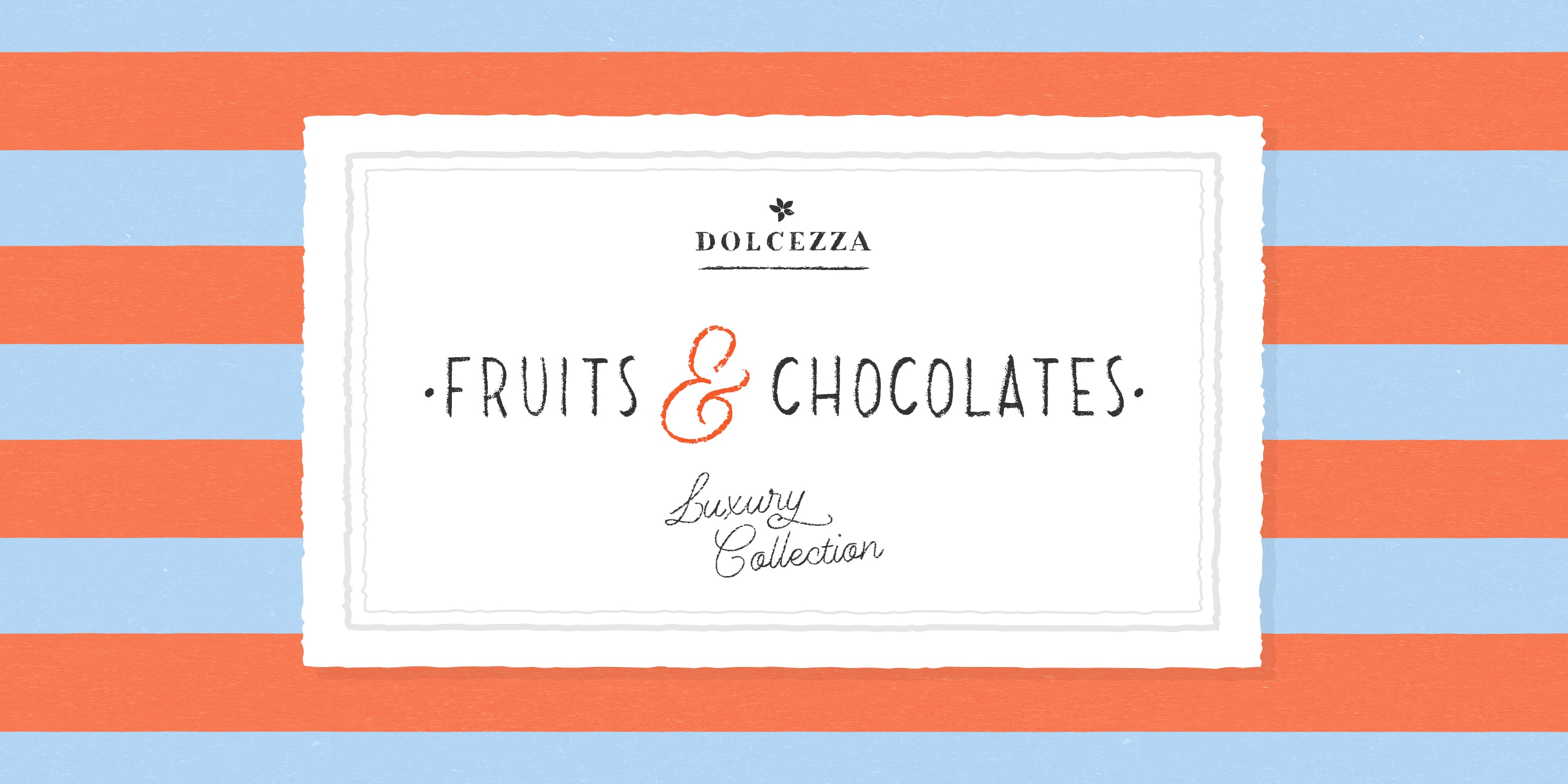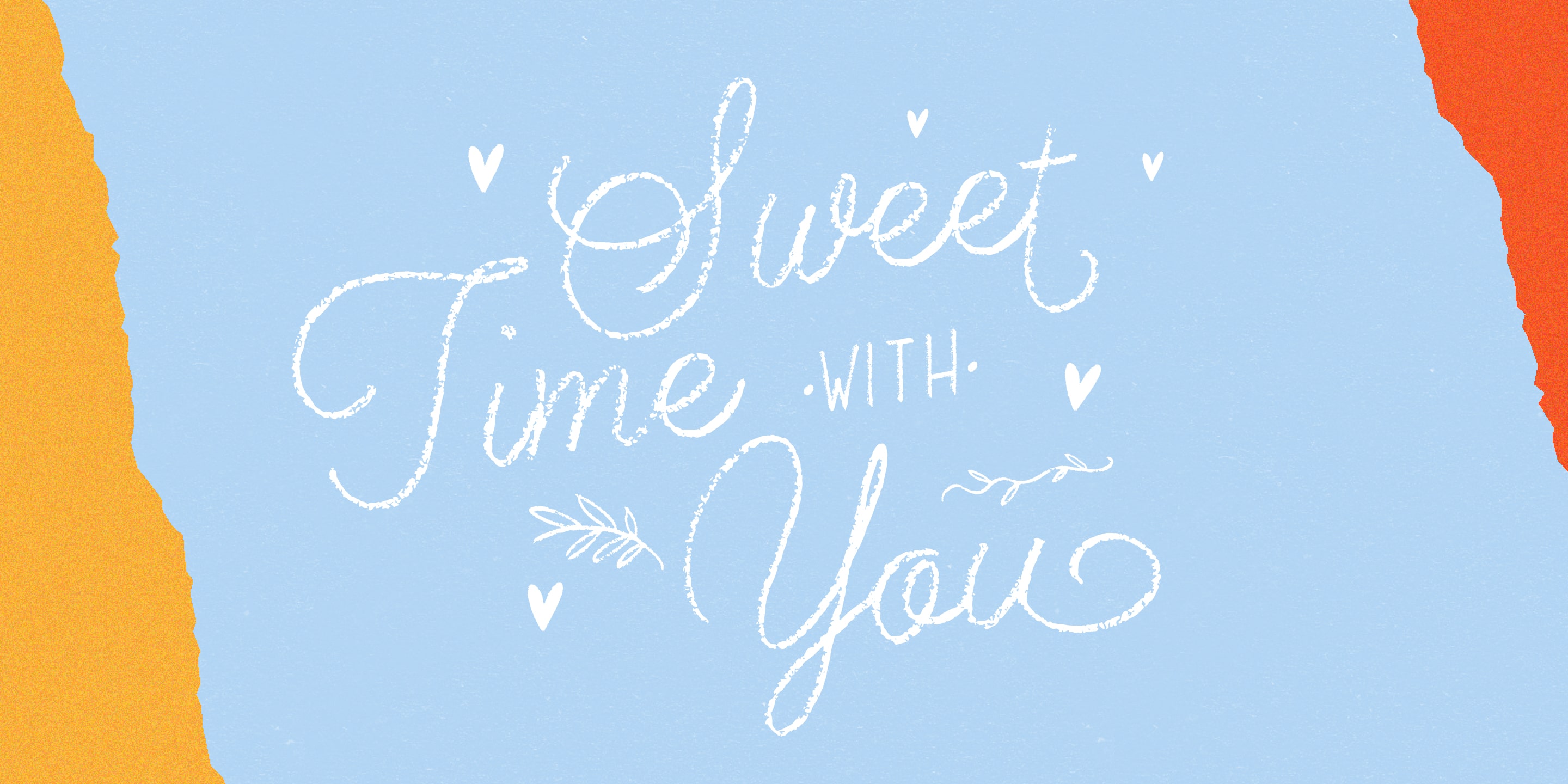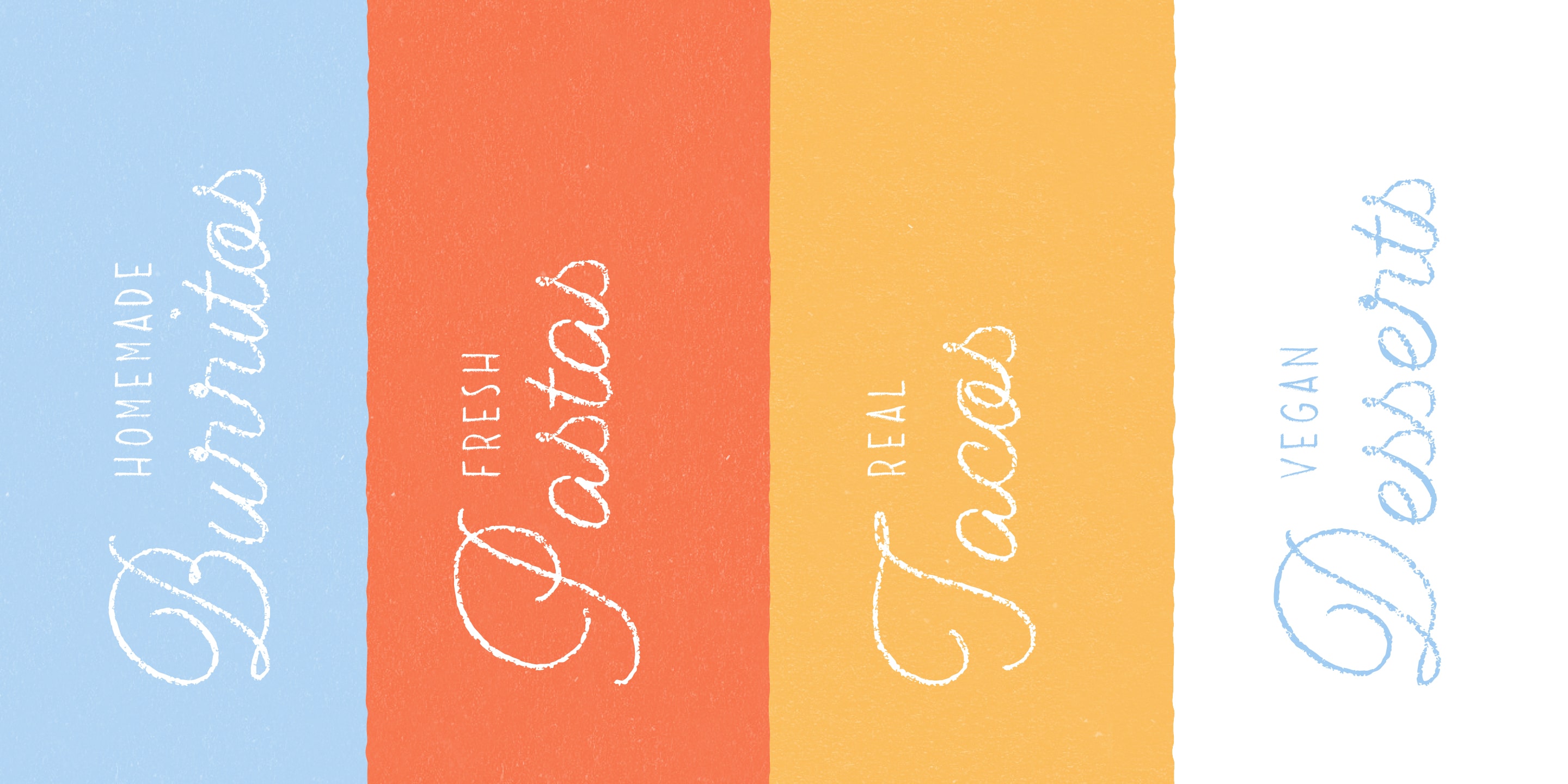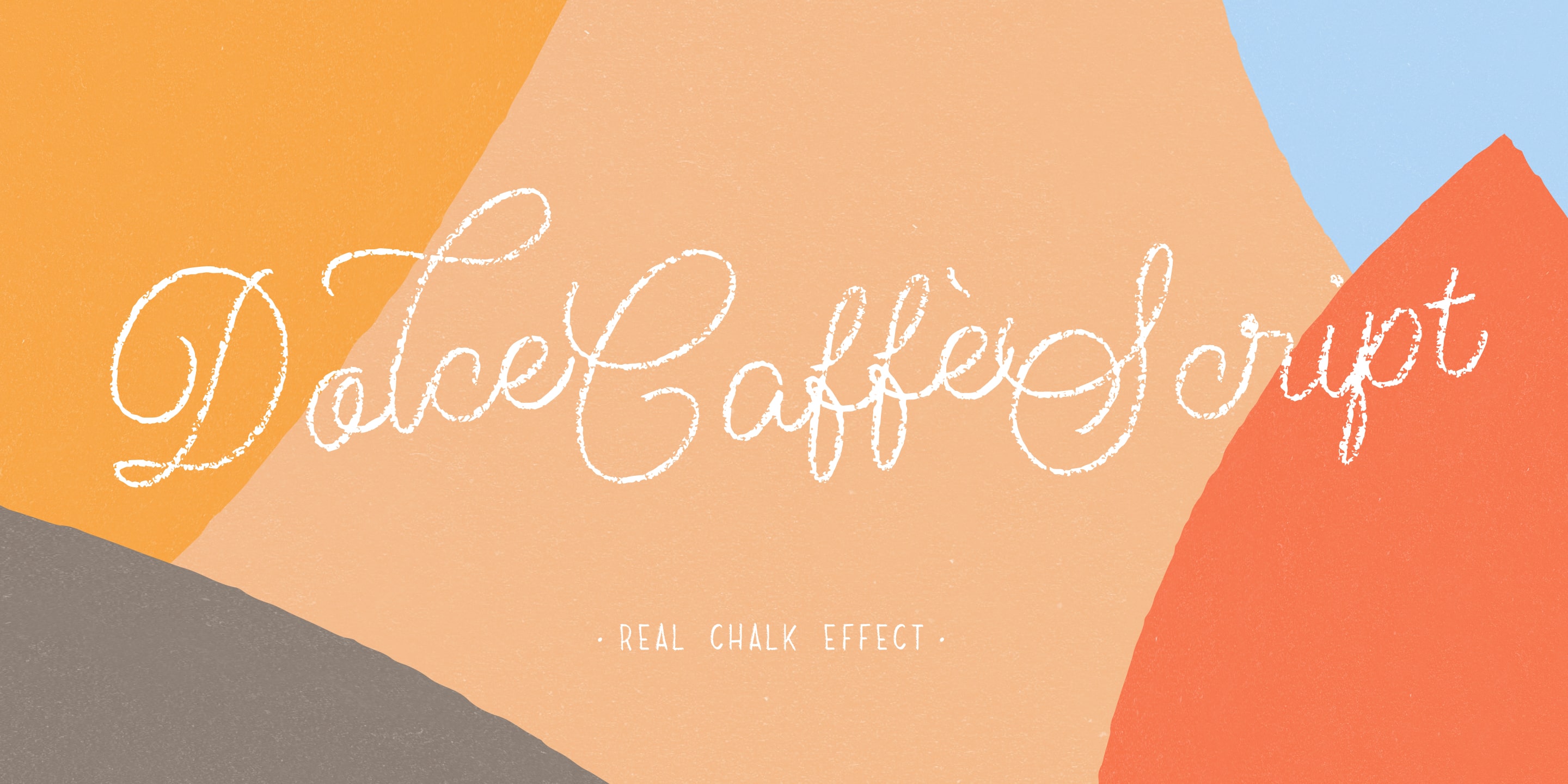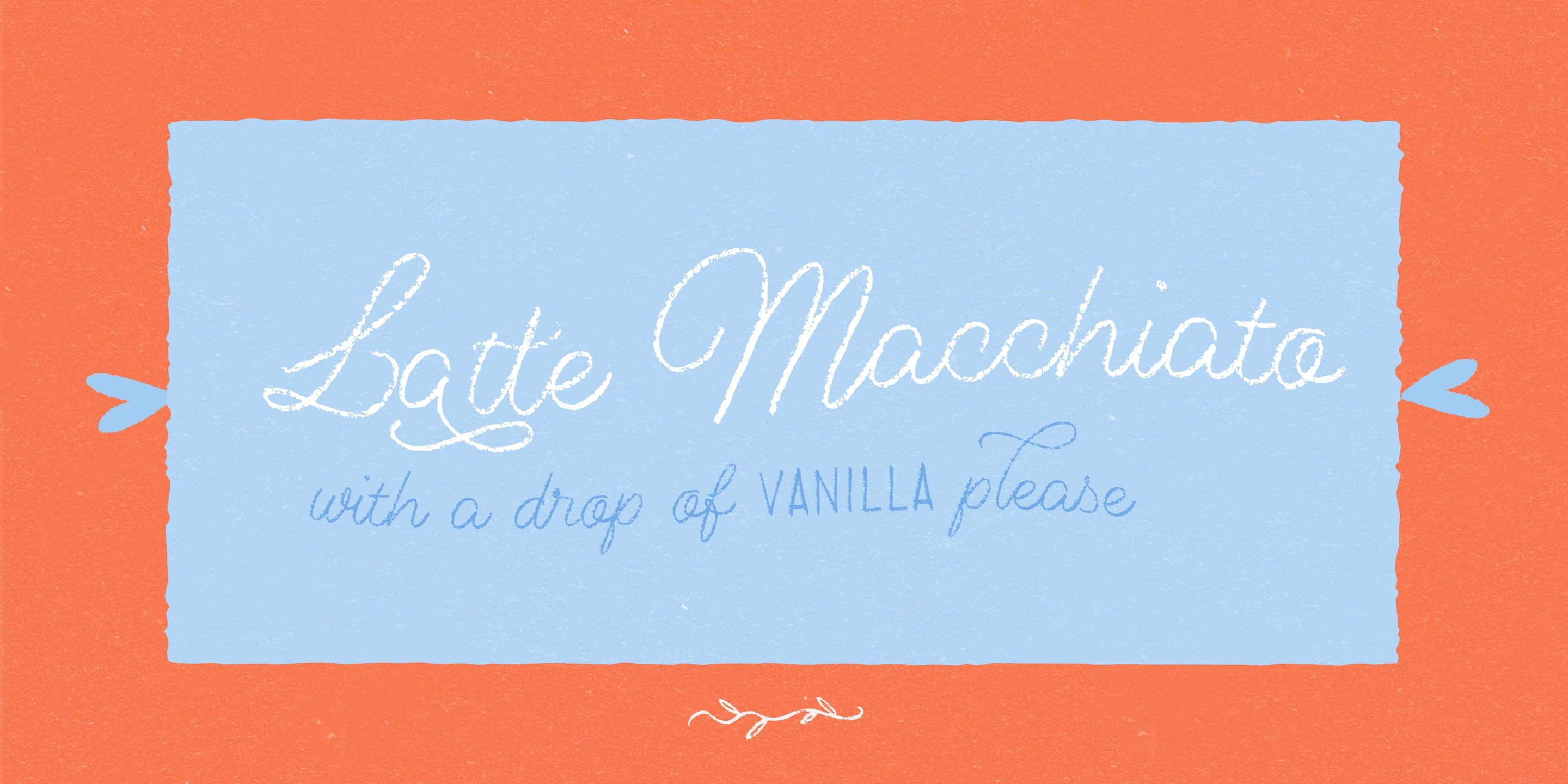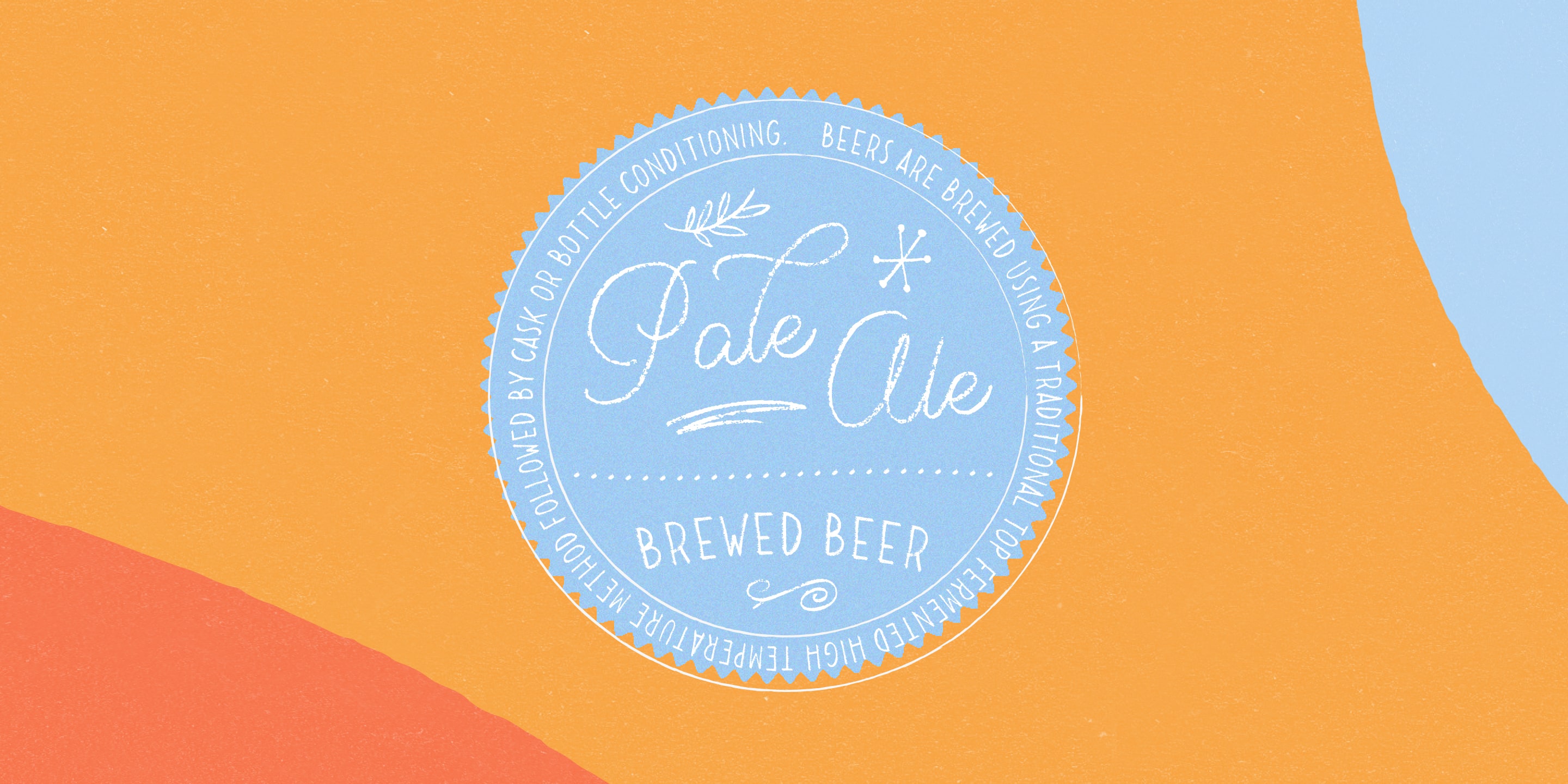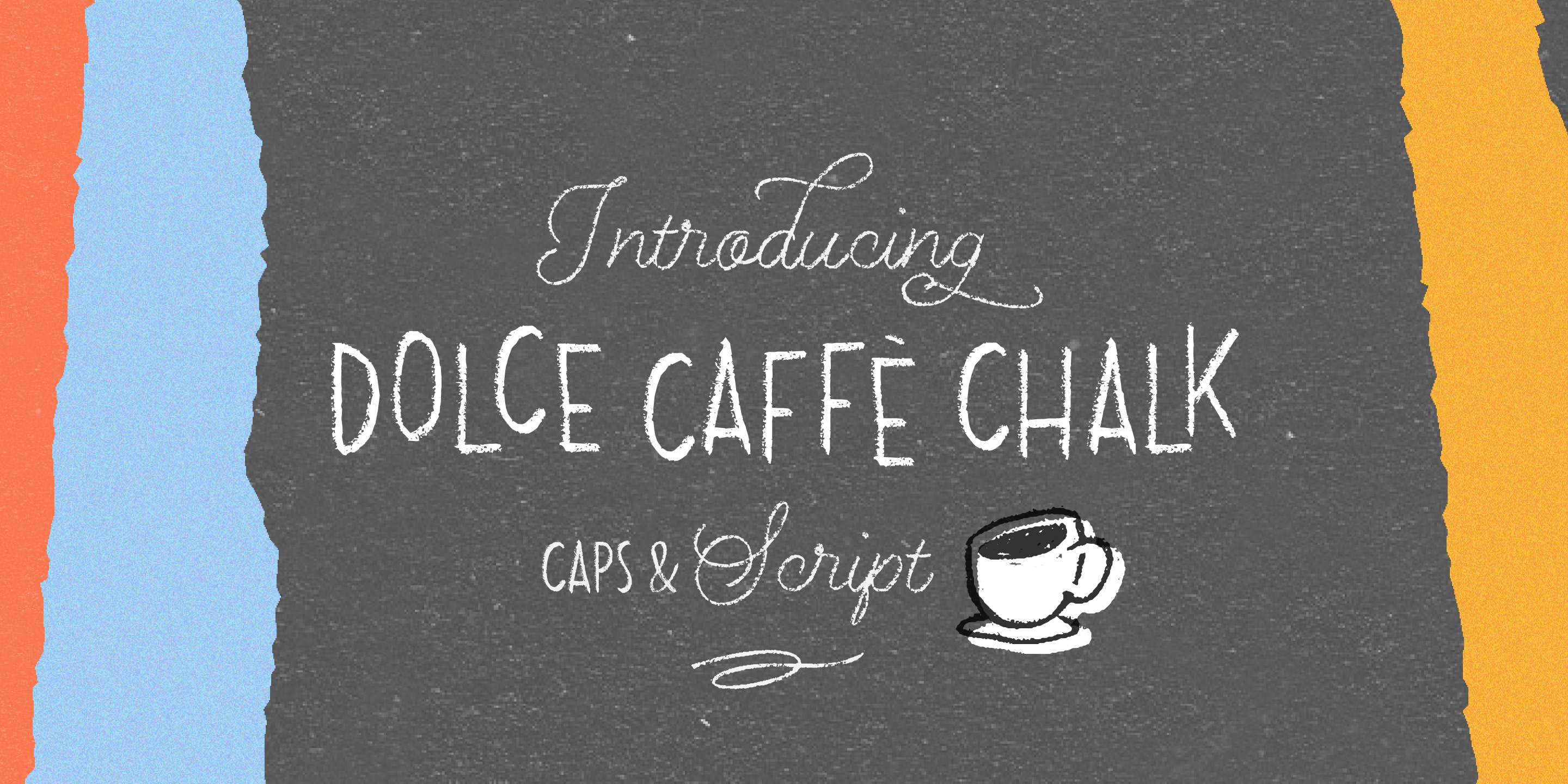
Dolce Caffe Chalk Collection
Dolce Caffe Chalk
Chalk Italic Chalk Chalk Extras Chalk ScriptUpright Script designed with Chalks
Dolce Caffe Chalk
Designed by Resistenza Type FoundryWe are glad to introduce a chalk version of our Dolce Caffè font with a upright Script and Extras, containing swashes, ornaments and icons.
This font was designed with crayons on paper to get the rough effect of chalk writing.
This fresh font family perfectly imperfect. Create letterings and add the beautiful human touch in diverse cases like headlines, posters, DIY hand-lettered artwork, books, holiday cards, wrapping paper, invitations, T-shirts, labels, packaging for cosmetics, fashion supplies, food products, artisanal goods